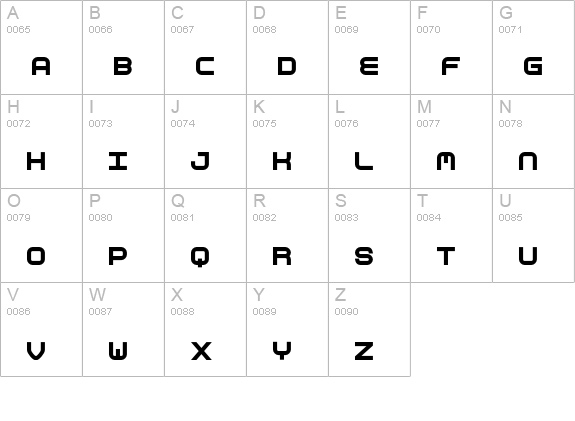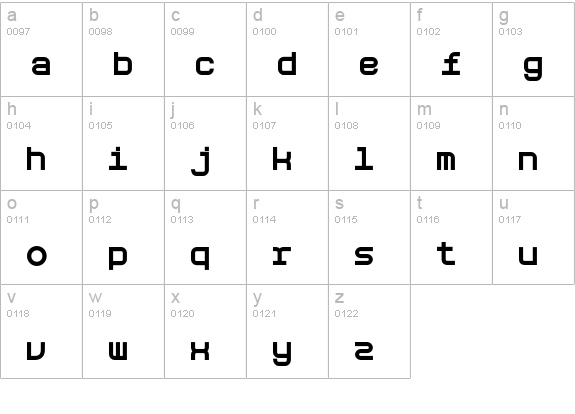
Aspirin-Overdose Font Details
Aspirin-Overdose font is a bold and dynamic typeface that exudes a sense of modernity and edginess. With its sharp angles and unique letterforms, this font is sure to make a statement in any design project. Whether you're looking to add a touch of sophistication to your branding materials or create eye-catching headlines, Aspirin-Overdose font is the perfect choice. This versatile font is suitable for a wide range of applications, from print to digital, and everything in between. Its bold and impactful design ensures that your message will stand out and make a lasting impression on viewers. Whether you're designing a poster, flyer, website, or any other creative project, Aspirin-Overdose font will help you achieve your desired look. Best of all, Aspirin-Overdose font is completely free to download at FontsMarket.com. So why wait? Add this stunning font to your collection today and take your designs to the next level!